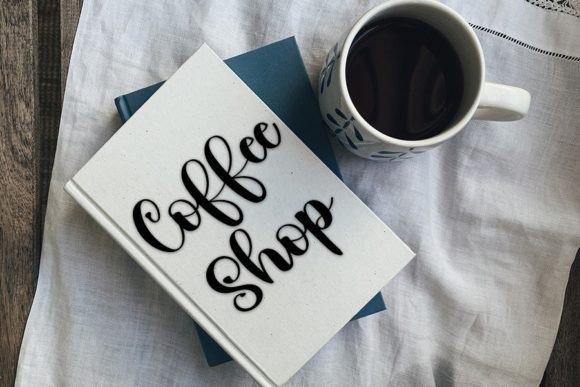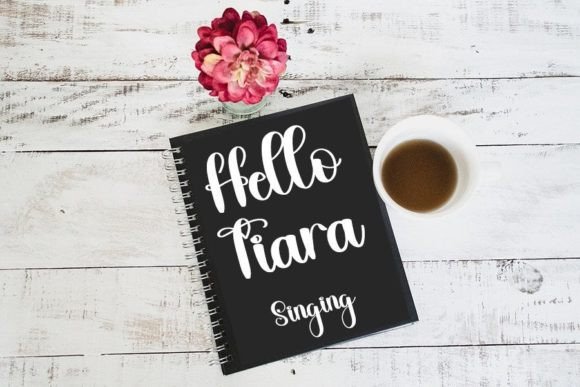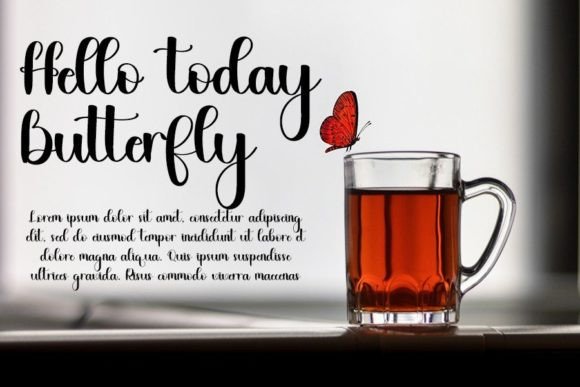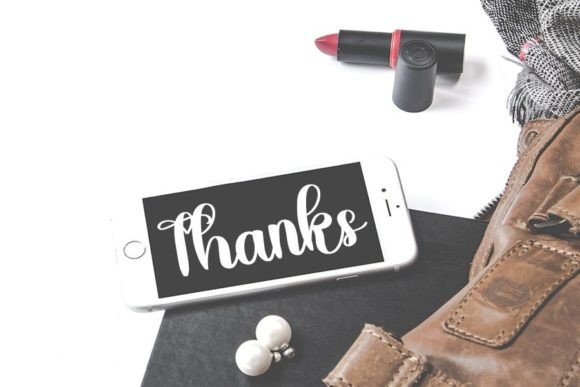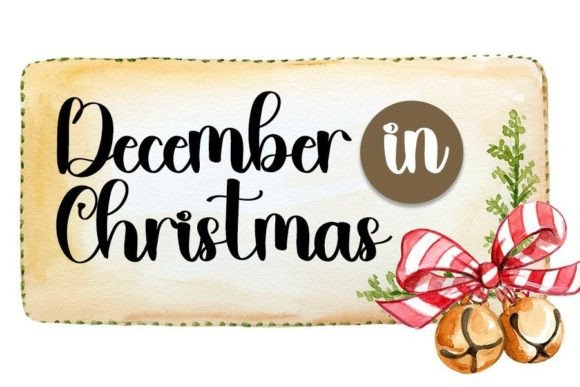
Amfibi Font
About Amfibi Font
“Amfibi” is more than just a font; it’s a stylish handwritten typeface that brings a contemporary atmosphere and impeccable form to your projects. Drawing inspiration from timeless classic calligraphy, this font is both balanced and varied, meticulously crafted to enhance the beauty of your designs with a touch of sophistication.
The contemporary atmosphere of “Amfibi” makes it a stylish choice for a diverse range of design projects. Whether you’re engaged in branding, web design, editorial content, prints, or any creative endeavor, this font injects a fresh and modern aesthetic that seamlessly aligns with the visual language of contemporary design.
Inspired by classic calligraphy, “Amfibi” captures the essence of traditional craftsmanship while infusing it with a modern twist. This blend results in a typeface that offers a harmonious synthesis of timeless elegance and contemporary flair, making it well-suited for a variety of applications.
The balanced and varied design of “Amfibi” ensures visual interest and versatility, allowing it to complement different elements within your projects. Whether you’re working on headlines, body text, or other typographic elements, this font maintains its appeal and adds a touch of sophistication to your designs.
In essence, “Amfibi” is a versatile and stylish handwritten font that harmonizes classic calligraphy with a contemporary edge. Incorporate it into your projects, and discover how it enhances the beauty and visual appeal, bringing a layer of style and elegance to your creative endeavors.